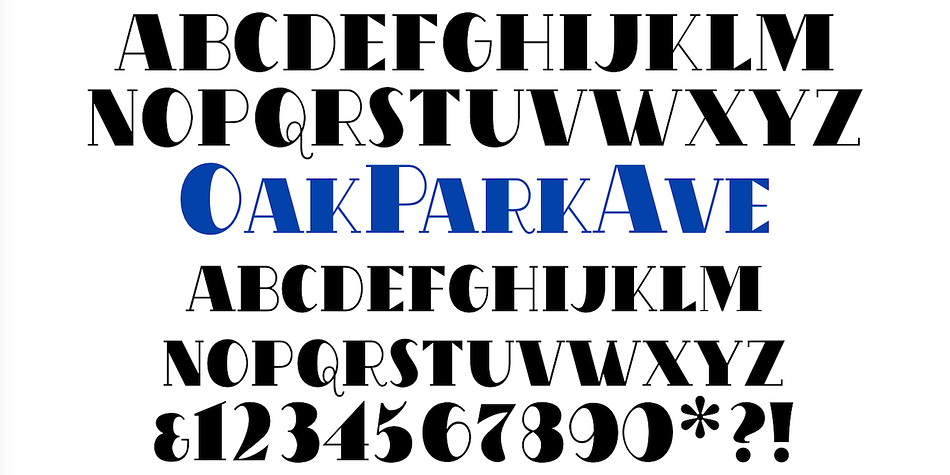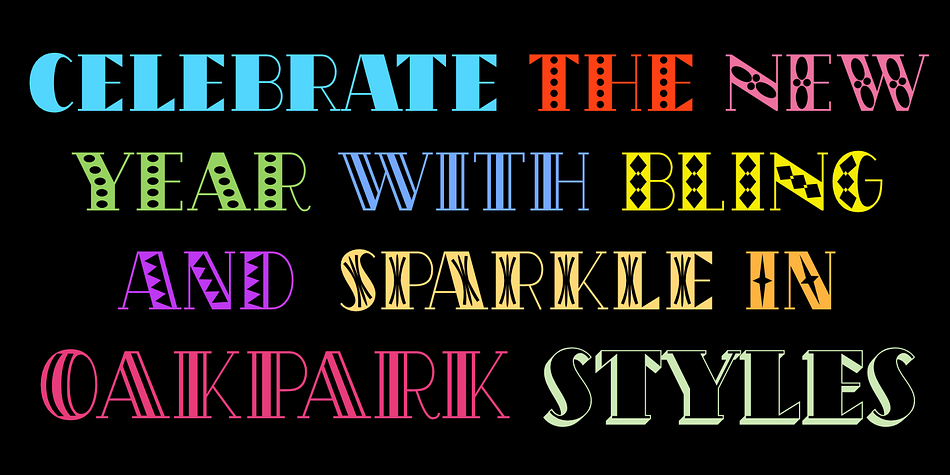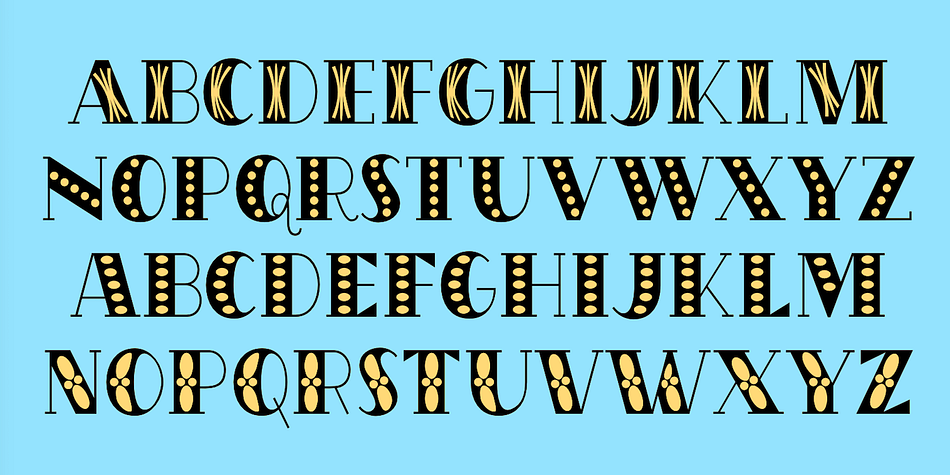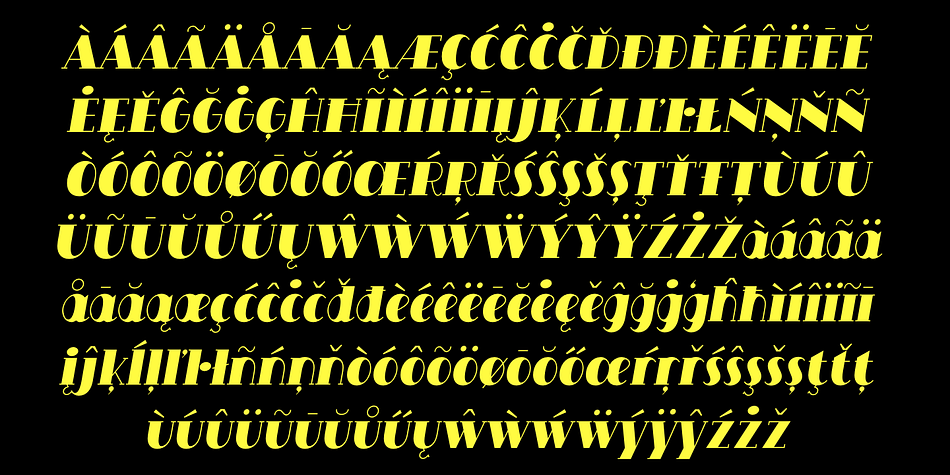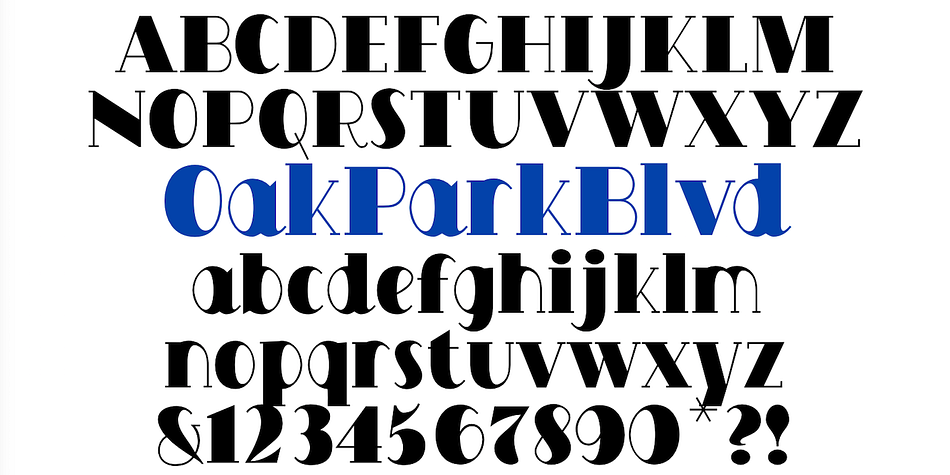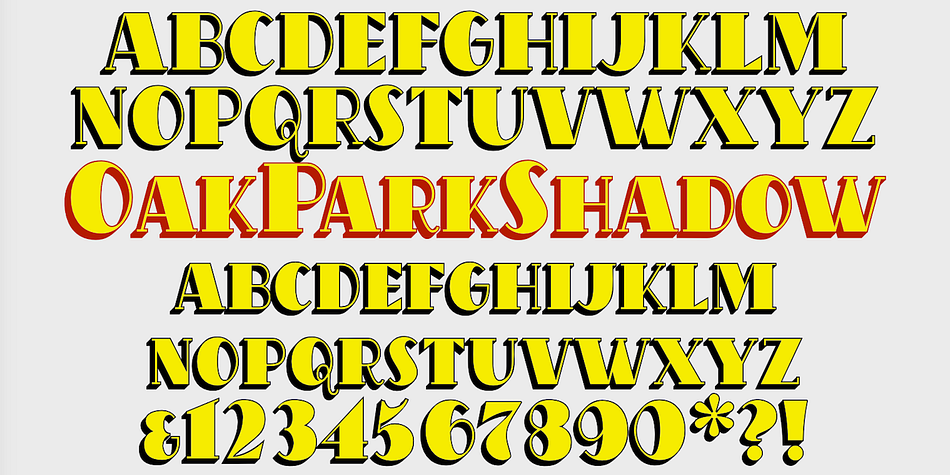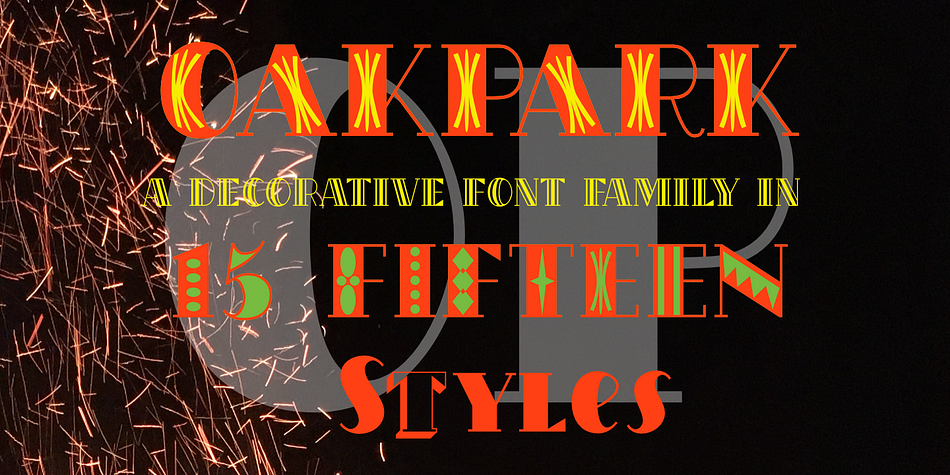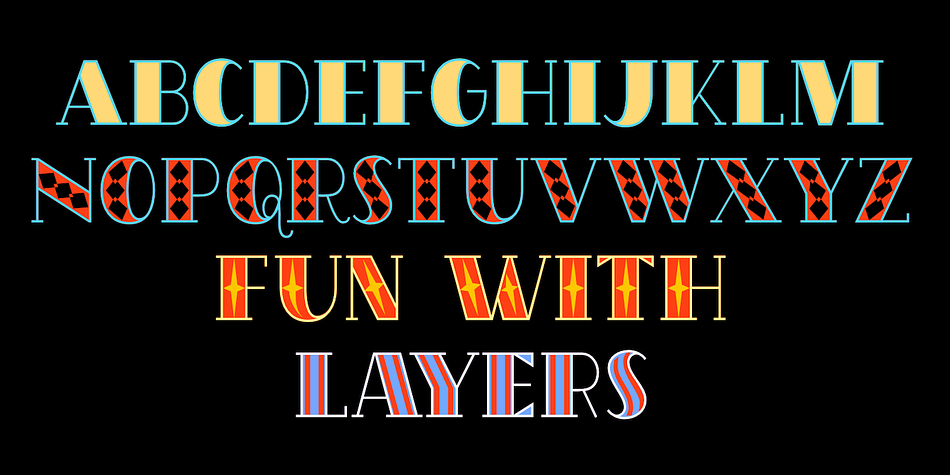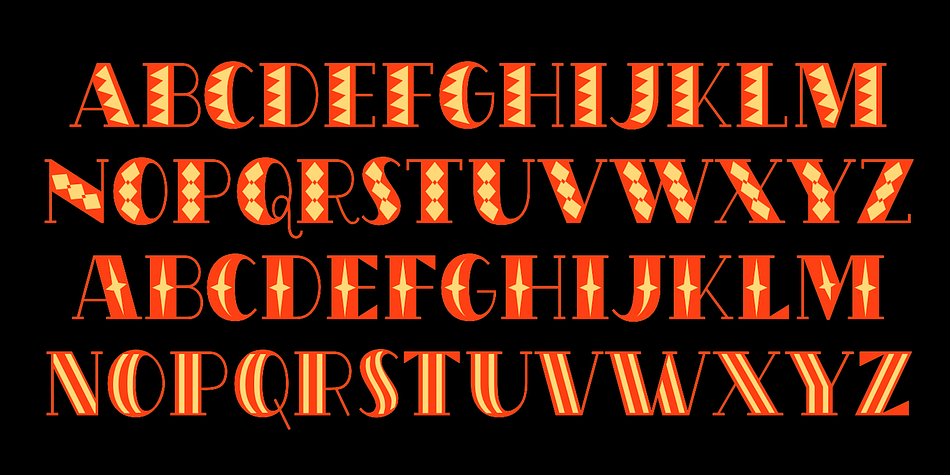
Designed by Robert Schenk, OakPark is an art deco and hand drawn font family. This typeface has fifteen styles and was published by Ingrimayne Type.
OakPark is a decorative or display family with an Art-Deco feel. It has high contrast with very thick stems that invite decoration. Eight members of the family have interior decoration and can be used individually or in layers over the regular style and under hollow style to create colorful text displays. These ten members are all-caps, but about half of the letters on the lower-case keys differ in some way from their counterparts on the upper-case keys. There is also a shadowed style and it can be layered with a shadowinside style. Completing the family are a style that has true lower case characters with an accompanying italics, and a style that has small caps on the lower-case keys.